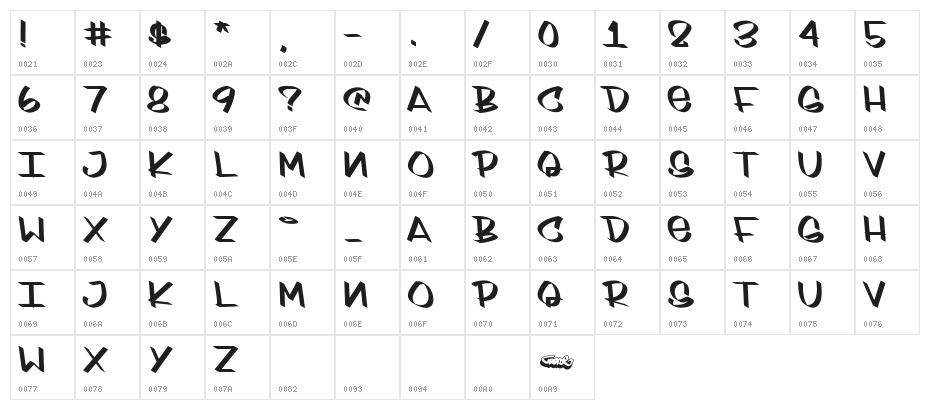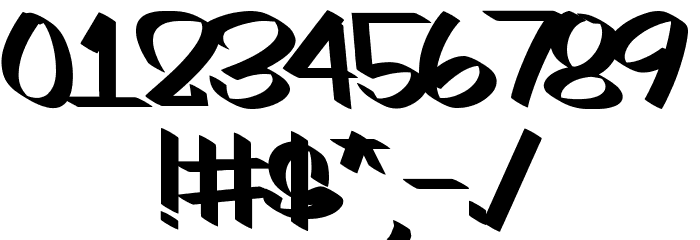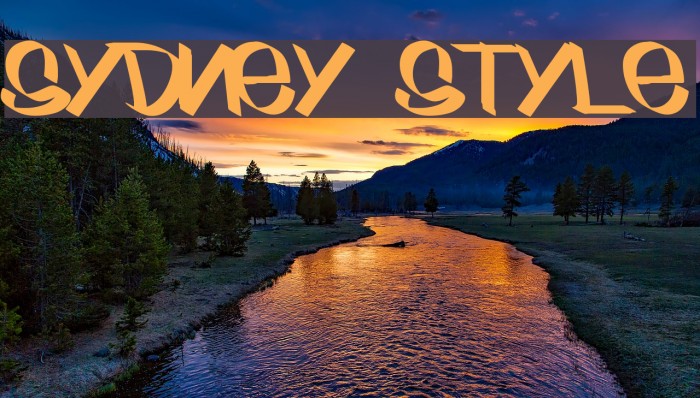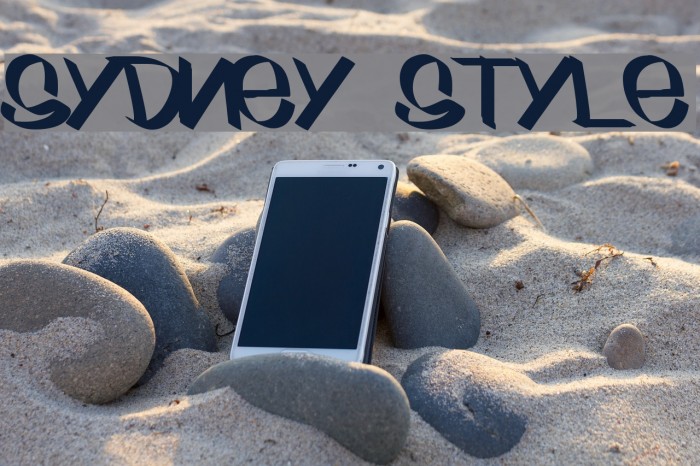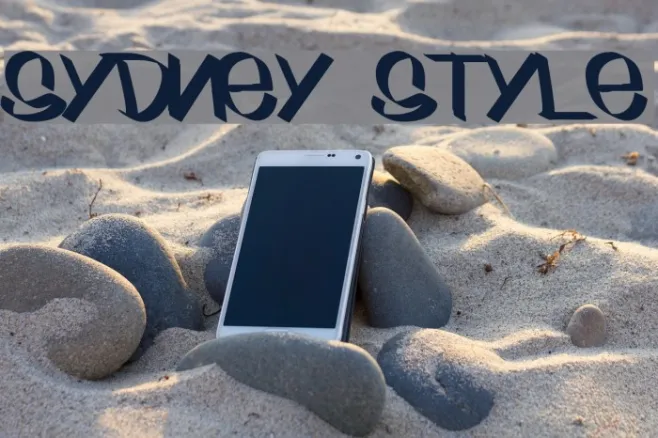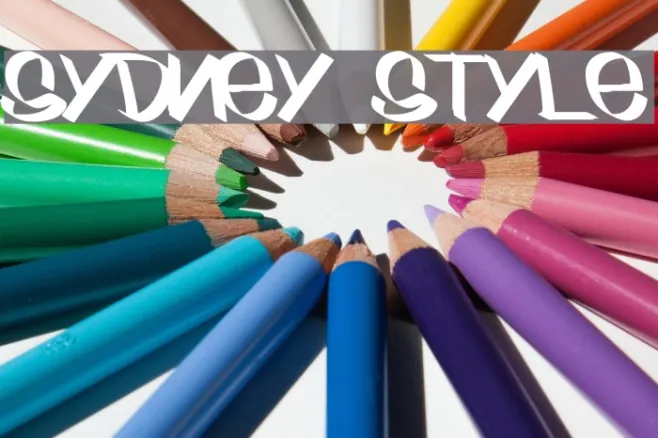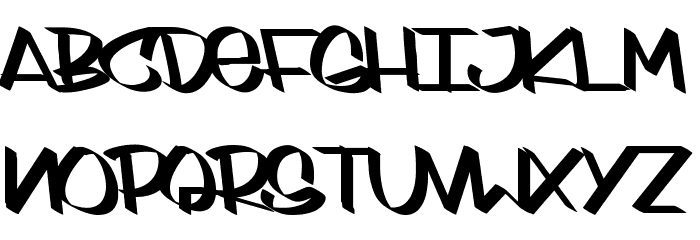
Sydney Style Font
Sydney Style Description
This font features a bold, graffiti-inspired style with sharp, angular lines and a dynamic, energetic appearance. The uppercase and lowercase letters share a consistent design, characterized by exaggerated curves and pointed edges that give a sense of movement and flair. Numbers and special characters maintain the same aesthetic, ensuring a cohesive look across all text. The font's unique style makes it stand out, ideal for projects that require a strong visual impact.
| Overall Style | Modern, Urban |
| Proposed Projects | Perfect for street art designs, urban-themed posters, music album covers, and edgy branding projects. |